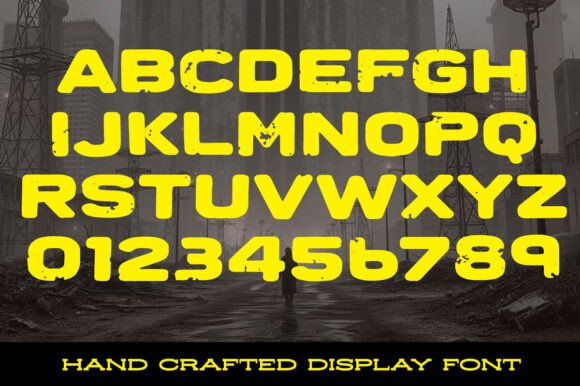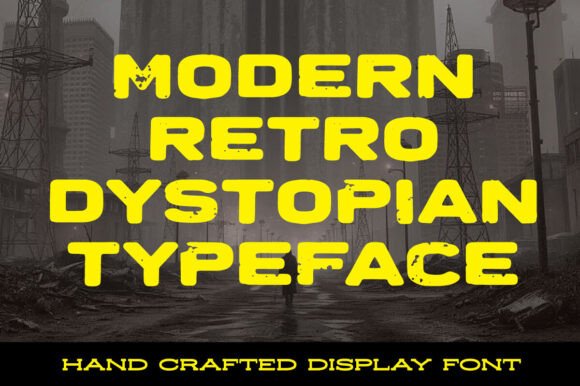
Introduction to Nebulage Font
Nebulage is a futuristic sci-fi font with a weathered past.
Its sleek, modern letterforms are infused with a distressed, timeworn texture, making it perfect for projects that blend advanced technology with a sense of history Whether used for dystopian titles, cyberpunk branding, or interstellar adventure designs, Nebulage captures the essence of a high-tech future tempered by the erosion of time.
Key Features of Nebulage Font